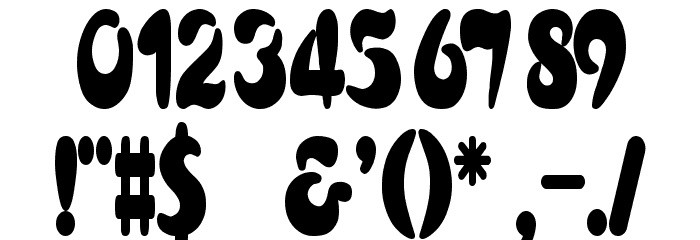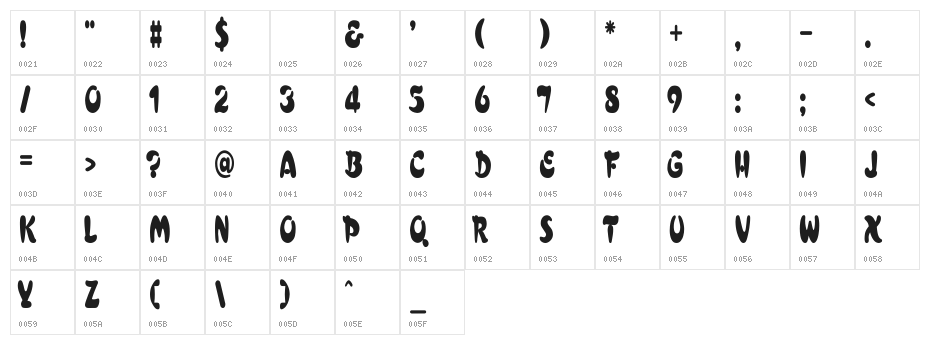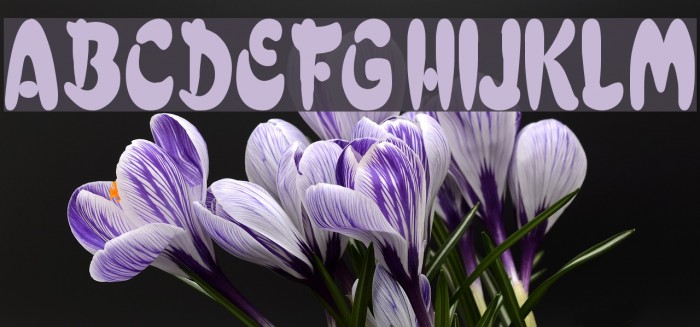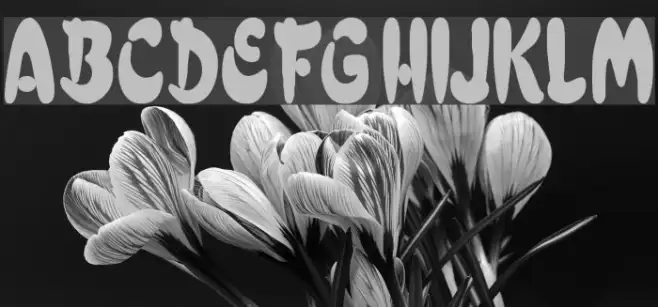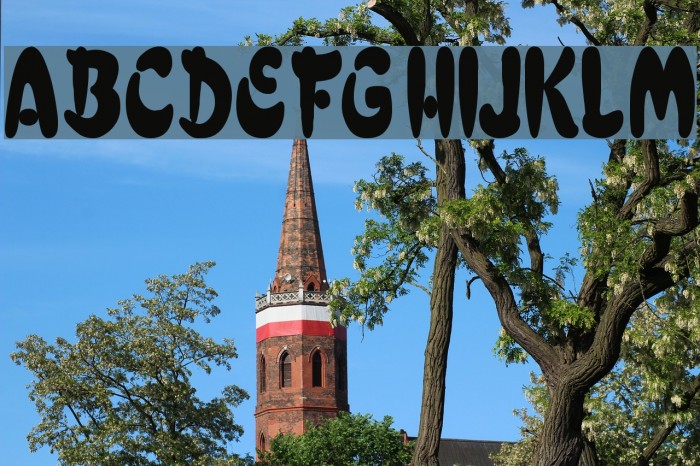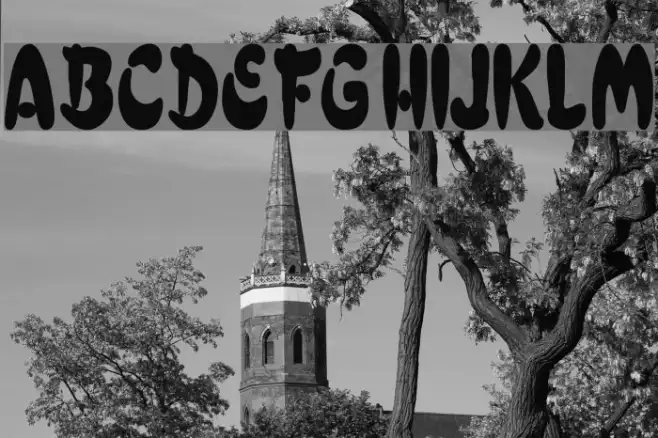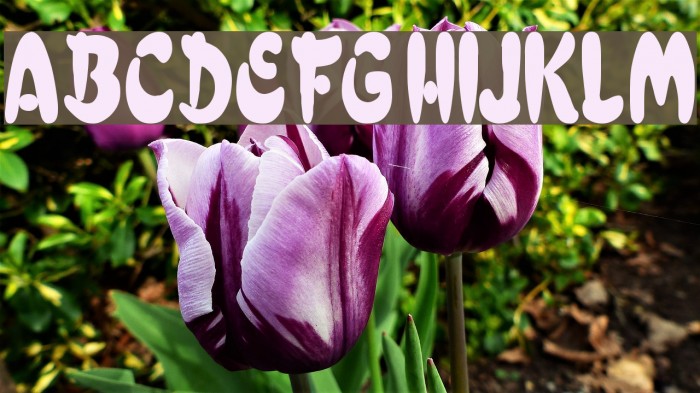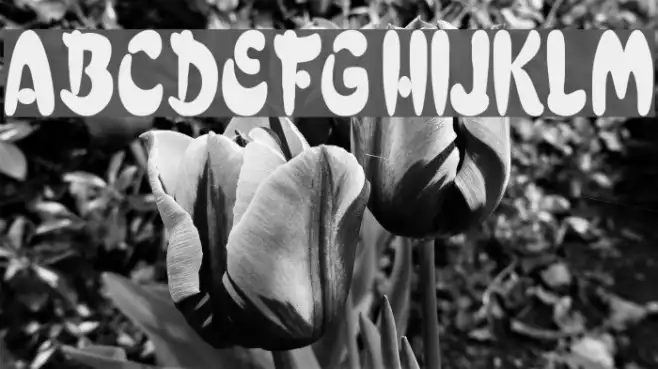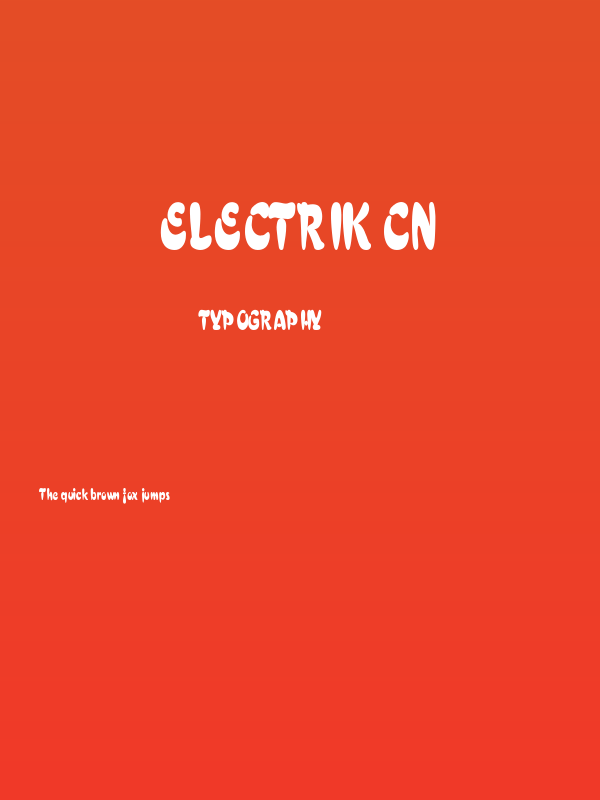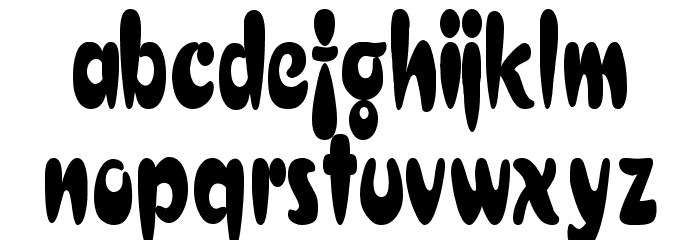
Electrik Cn Font
Electrik Cn Description
This font features a bold and playful design with rounded, bulbous letterforms that convey a sense of fun and whimsy. The characters are thick and heavy, with a consistent stroke width that gives them a strong presence. The overall style is reminiscent of retro or vintage designs, with a modern twist that makes it suitable for contemporary use. The uppercase and lowercase letters maintain a uniform style, while the numerals and special characters are equally bold and expressive. This font is ideal for projects that require a touch of personality and flair, such as children's books, posters, or branding for playful products.
| Overall Style | Retro, Playful |
| Proposed Projects | Children's books, playful branding, posters, and retro-themed designs. |